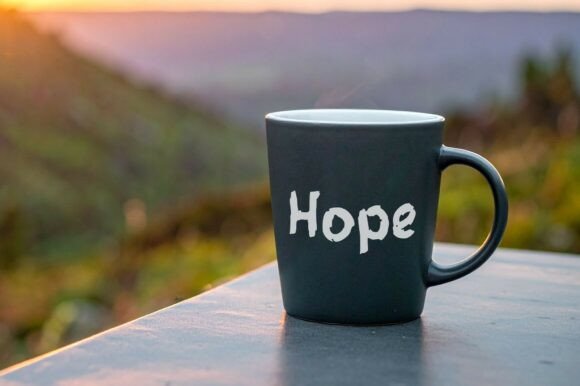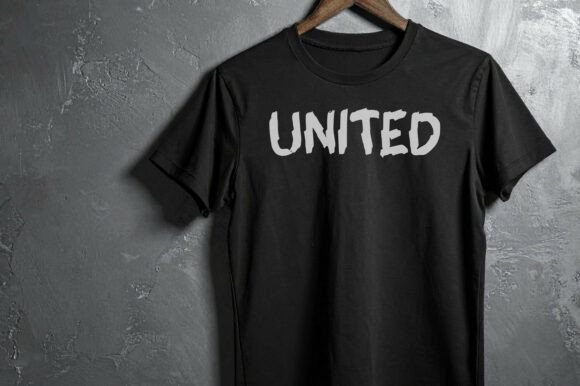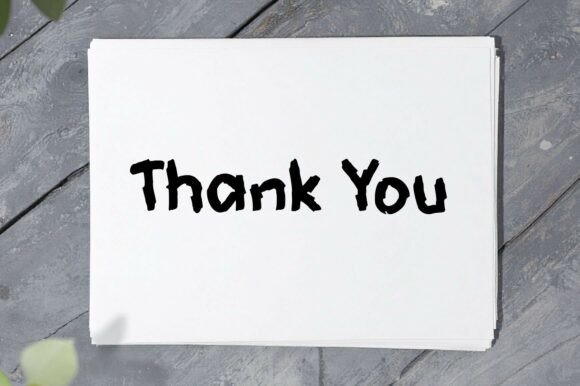
Bangkitkan Bangsa Font: The Power of Unity in Design
Have you ever stopped to think about the fonts that inspire you? For many designers, the moment of creative spark often begins with a single letterform or a bold typography choice. For us, it was the discovery of the “Bangkitkan Bangsa Font” – a powerful, assertive display font designed to convey a sense of strength, determination, and unity.
With its thick, confident strokes and slightly condensed structure, the “Bangkitkan Bangsa Font” is perfectly suited for projects that require a strong, patriotic, or motivational message. Whether you’re working on a political campaign, creating a social movement poster, or developing a national branding strategy, this font is an invaluable asset in your design toolkit.
Bangkitkan Bangsa Font Key Features
- Font Family: Bangkitkan Bangsa is a custom-designed font family, offering a unique and distinctive look for various applications.
- Size: The font family includes multiple weights, ranging from Light to Extra Bold, providing flexibility for various design needs.
- Unique Characteristics: The font features a mix of traditional and modern elements, blending Indonesian cultural influences with a contemporary aesthetic, making it a unique choice for designers and brands looking to reflect their cultural heritage.
- Language Support: Bangkitkan Bangsa font family supports multiple languages, including Indonesian, making it an ideal choice for local and international brands operating in Indonesia.
Bangkitkan Bangsa Font Review
I recently had the chance to work with Bangkitkan Bangsa Font, a unique font designed to evoke a sense of national pride in Indonesia. Here’s my honest review.
- The font has a clear, bold aesthetic that grabs attention. It’s perfect for headlines and titles.
- The design team has put thought into the font’s nuances, with subtle details that add to its character.
- Bangkitkan Bangsa Font is highly customizable, making it easy to adapt to various design needs.
- The font may not be suitable for body text, as it can be difficult to read in smaller sizes.
- The design, while bold, may come across as too flashy or attention-seeking in some contexts.
- There could be more language support for non-Indonesian languages, limiting its global appeal.
Overall, I think Bangkitkan Bangsa Font is a great choice for projects that need a bold, attention-grabbing font. While it may have some limitations, its unique design and high customizability make it a valuable addition to any designer’s toolkit. Just be mindful of its potential drawbacks when choosing a font for your project.
Tips for Getting the Most Out of Bangkitkan Bangsa Font
Use Bangkitkan Bangsa Font to add a touch of Indonesian culture to your designs.
Experiment with different font sizes and colors to create a visually appealing effect.
Combine Bangkitkan Bangsa Font with other fonts to create a unique and interesting design.
Bangkitkan Bangsa Font is perfect for:
Creating promotional materials for Indonesian businesses.
Designing cultural events and festivals.
Adding a touch of Indonesian flair to your personal projects.
Comparison: Noto Sans Indonesia is more modern and has a more uniform design compared to Bangkitkan Bangsa Font. It is also more widely supported and can be easily downloaded from the Google Fonts library.
Q: Does Bangkitkan Bangsa Font support languages other than Indonesian?
Bangkitkan Bangsa Font is designed to support the Indonesian language, but it also includes support for other languages that use the Latin script, such as English, Spanish, and French. However, for languages that require non-Latin scripts, such as Arabic or Chinese, you may need to use a different font or adjust the font settings accordingly.